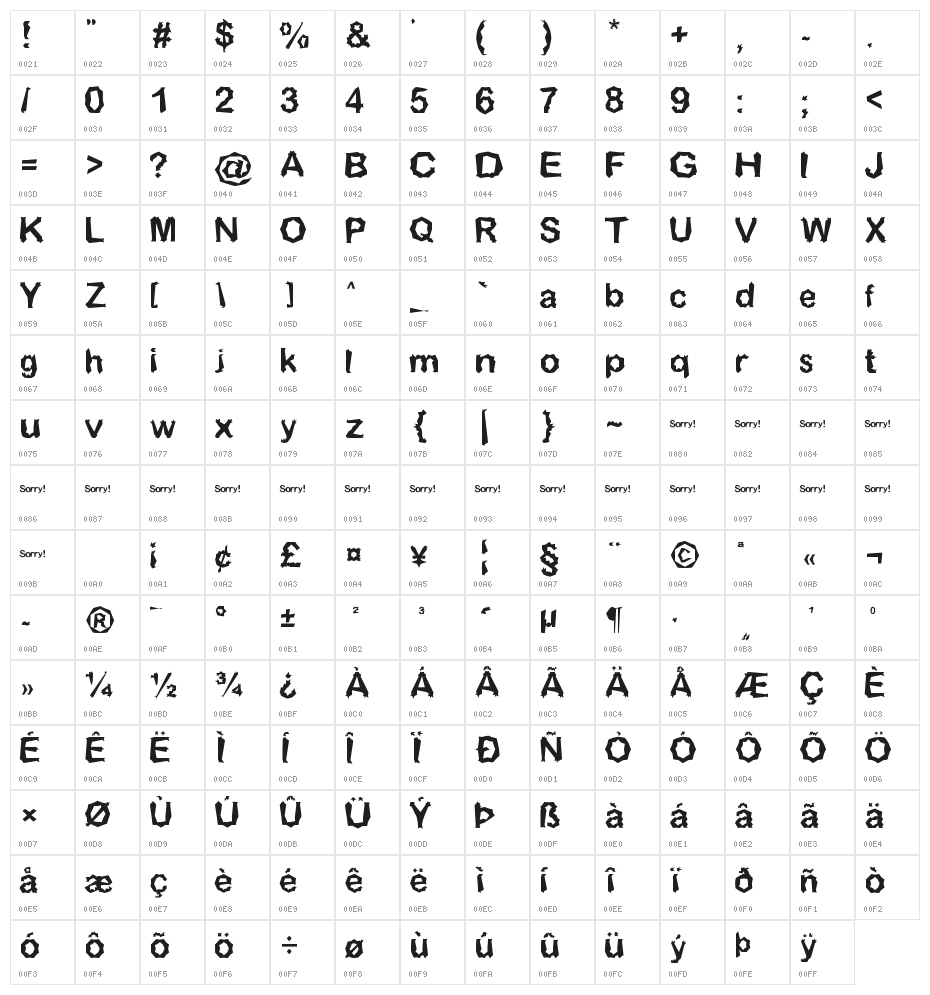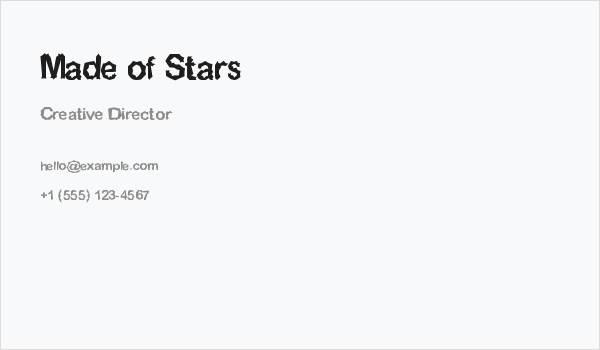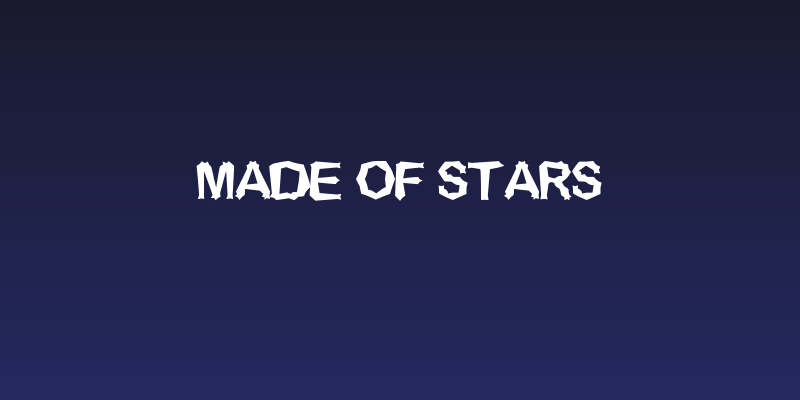
Made of Stars Font
Made of Stars Description
This font features a bold and jagged design, reminiscent of sharp, angular shapes that evoke a sense of edginess and dynamism. The uppercase and lowercase letters maintain a consistent style, with each character exhibiting unique, irregular edges that create a visually striking appearance. The numbers and special characters follow the same aesthetic, ensuring a cohesive look across all elements. The font's distinctive style makes it ideal for projects that require a bold statement or a touch of unconventional flair.
| Proposed Projects | Perfect for album covers, posters, video game graphics, or Halloween-themed designs. |